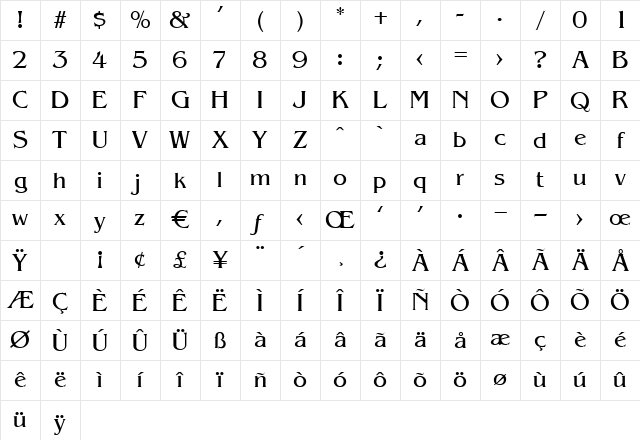
AidaBook Regular
Design Context for AidaBook
AidaBook is a composed and adaptable typeface that performs quietly and consistently across a wide range of design contexts.